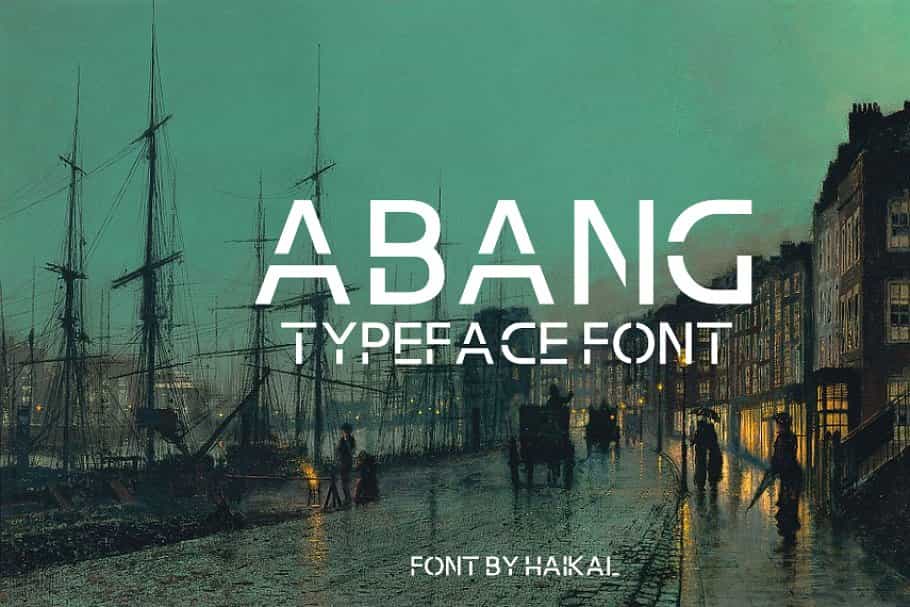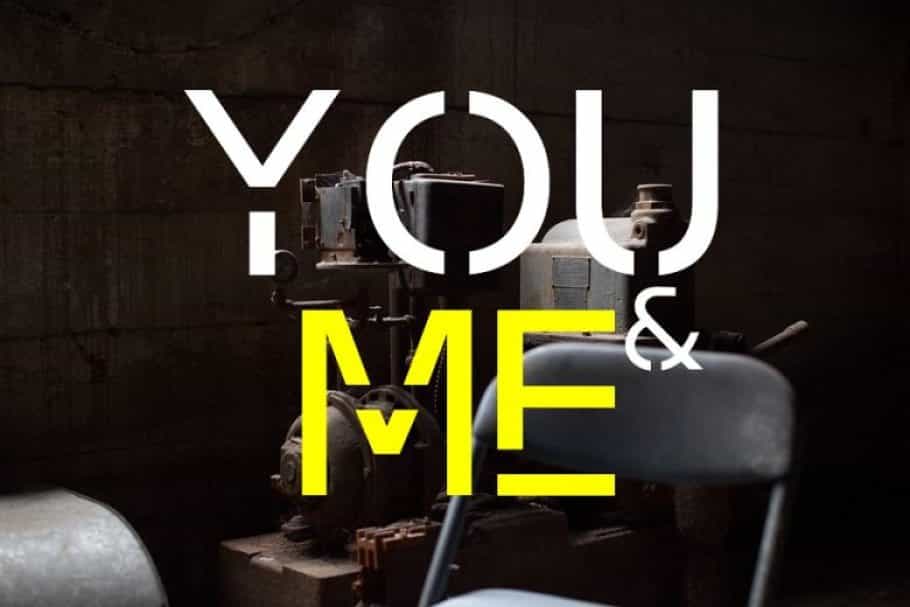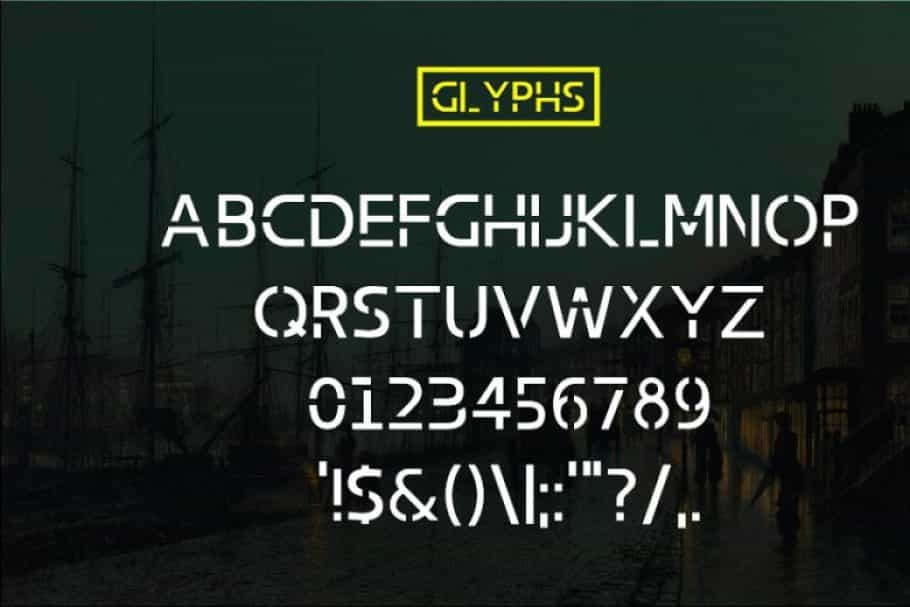
Abang is a delicate plain vintage sans serif font with the soft corners that are reminiscent of the vintage printing, suitable for vintage logos, headers, small texts and logo, short quotes. It also has the upper case of the alphabet and symbols and numbers for the convenience.